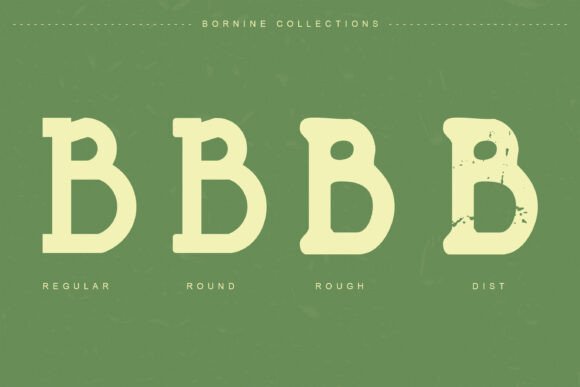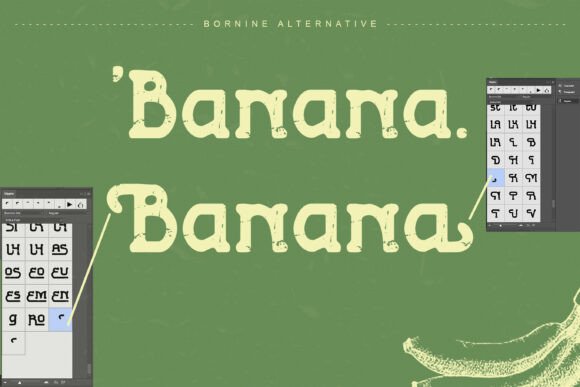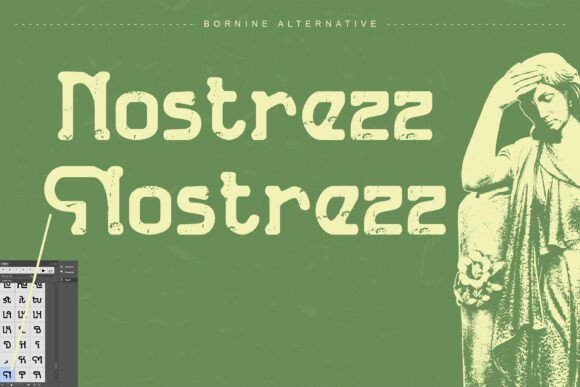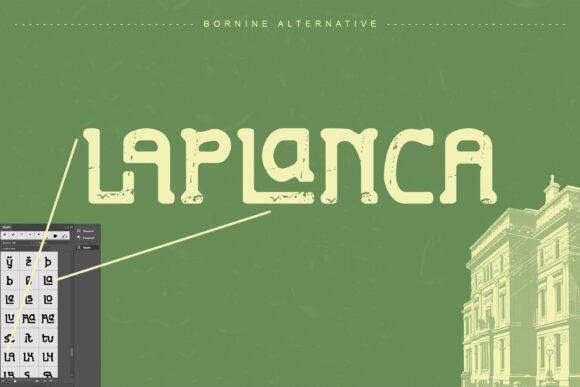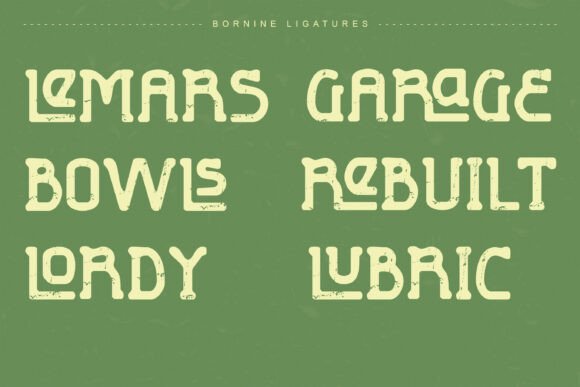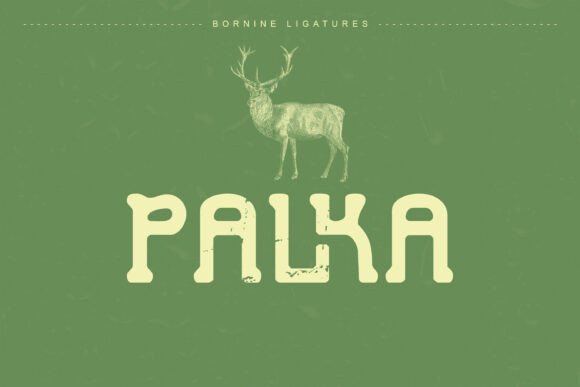
Bornine Font: The Perfect Typeface for Classic Motorcycle Enthusiasts and Designers
In the world of typography, fonts are often designed to evoke a specific mood or aesthetic. For designers and crafters who are passionate about classic motorcycles and the authentic custom culture, the Bornine font is an excellent choice. This unique and elegant typeface is inspired by the bold lines and smooth curves of vintage motorcycles, making it perfect for projects that require a touch of rebelliousness and sophistication.
The Inspiration Behind Bornine
Bornine is more than just a font – it’s a tribute to the world of classic motorcycles and the culture that surrounds them. The typeface is designed to capture the essence of freedom and adventure that comes with hitting the open road on two wheels. With its bold lines and smooth curves, Bornine embodies the spirit of riders who value individuality and a lifestyle full of character.
The font’s creator drew inspiration from the sleek designs of vintage motorcycles, as well as the custom culture that has evolved around them. From the choppers and bobbers of the 1960s to the modern-day cafe racers, Bornine is a nod to the creativity and ingenuity of motorcycle enthusiasts.
Design Characteristics of Bornine
So, what sets Bornine apart from other fonts? Here are some of its key design characteristics:
- Bold Lines: Bornine features bold, confident lines that evoke the ruggedness and power of classic motorcycles.
- Smooth Curves: The font’s smooth curves add a touch of elegance and sophistication, balancing out the boldness of the lines.
- Unique Letterforms: Each letterform in Bornine is carefully crafted to reflect the spirit of classic motorcycles and the custom culture.
Uses for Bornine
Bornine is a versatile font that can be used in a variety of design projects, including:
- Logo Design: Bornine is perfect for logos that require a bold, attention-grabbing typeface.
- Typography: Use Bornine to add a touch of personality to your typography projects, from posters to business cards.
- Branding: Bornine can be used to create a cohesive brand identity that reflects a company’s values and personality.
- Crafting and DIY Projects: Bornine is also suitable for crafting and DIY projects, such as making custom signs, stickers, or decals.
Why Designers and Crafters Love Bornine
So, why do designers and crafters love Bornine? Here are a few reasons:
- Unique Aesthetic: Bornine offers a unique aesthetic that’s hard to find in other fonts.
- High Versatility: The font can be used in a variety of design projects, from logos to typography.
- Easy to Read: Despite its bold lines, Bornine is easy to read, making it perfect for body text and headlines.
In conclusion, Bornine is a one-of-a-kind font that’s perfect for designers and crafters who are passionate about classic motorcycles and the authentic custom culture. With its bold lines, smooth curves, and unique letterforms, Bornine embodies the spirit of freedom and adventure that comes with hitting the open road. Whether you’re designing a logo, creating a typography project, or working on a crafting or DIY project, Bornine is an excellent choice.